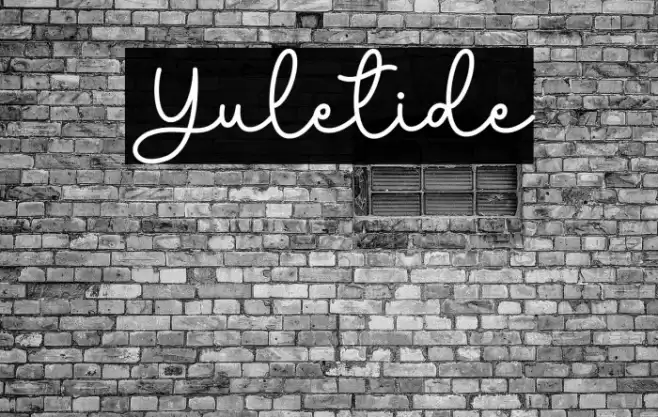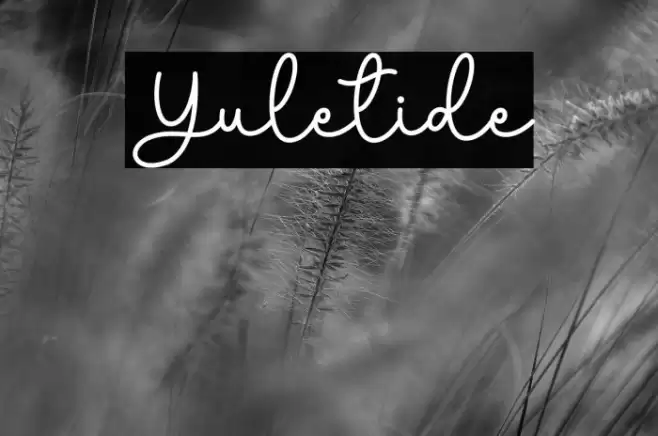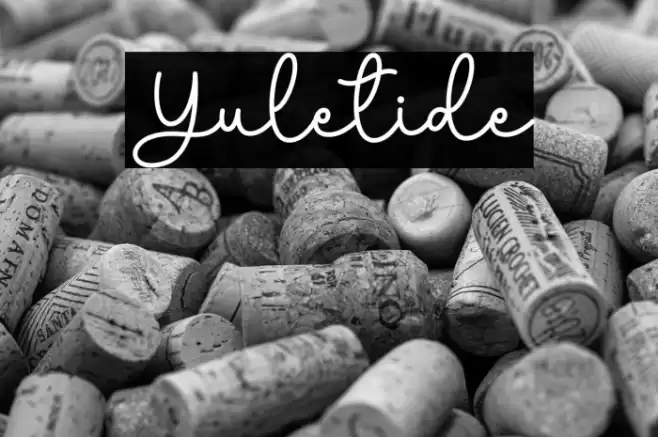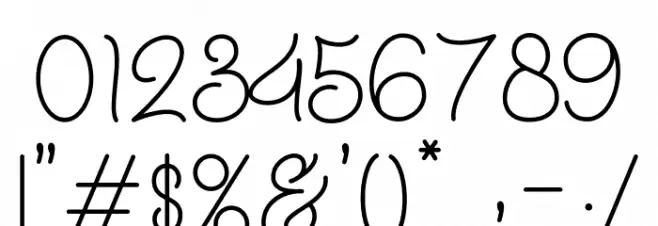
Yuletide Font
Yuletide Description
This font features a playful and whimsical script style, characterized by its flowing, interconnected letters that mimic a handwritten appearance. The uppercase letters are elegantly looped, while the lowercase letters maintain a consistent, smooth flow. The numerals are rounded and maintain the same playful aesthetic, ensuring readability. Special characters are designed to complement the overall style, with a consistent stroke width that ties the entire set together. This font exudes a sense of joy and creativity, making it ideal for projects that require a personal touch.
A playful, handwritten script font with flowing, interconnected letters from Regular fonts.
- Font: Yuletide
- Proposed Projects: Ideal for greeting cards, invitations, logos, and creative branding projects.
- Use Case: Logos, Invitations, Greeting Cards